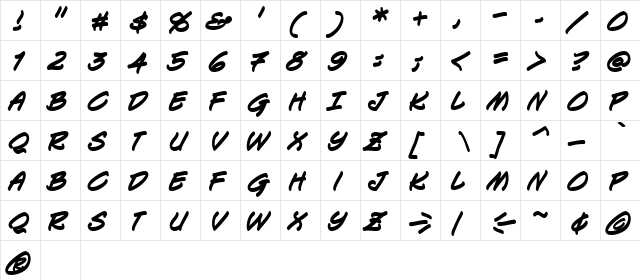
Keelhauled BB Bold
Keelhauled BB is a composed and adaptable typeface that performs quietly and consistently across a wide range of design contexts. The heavy weight commands attention and anchors typographic hierarchies.